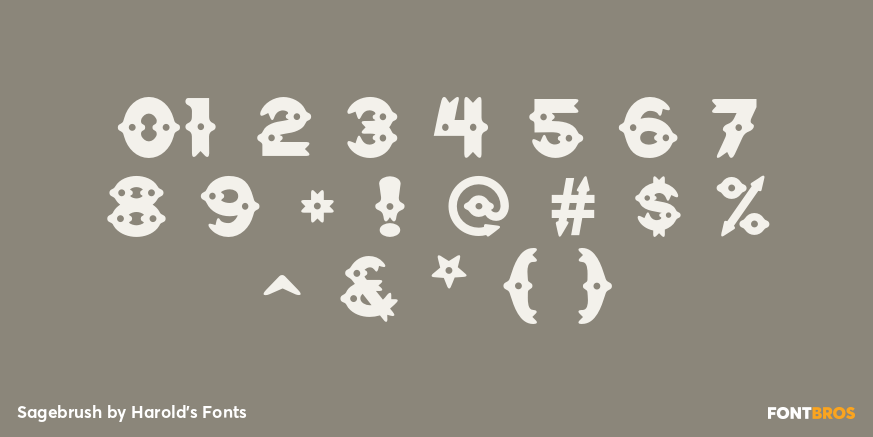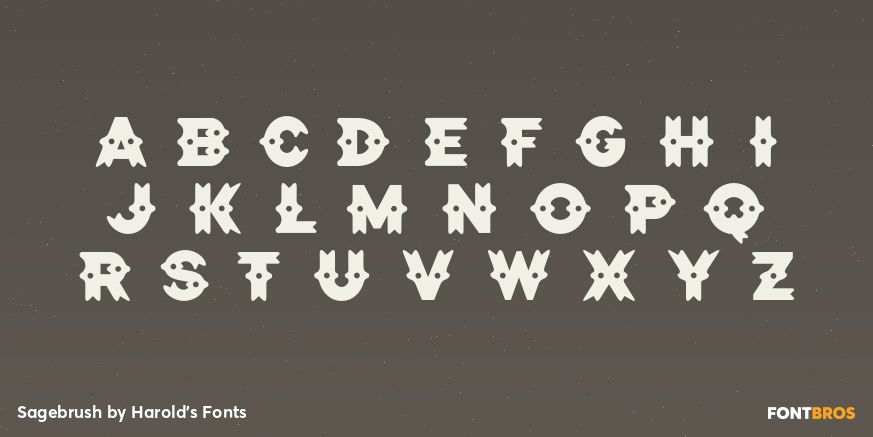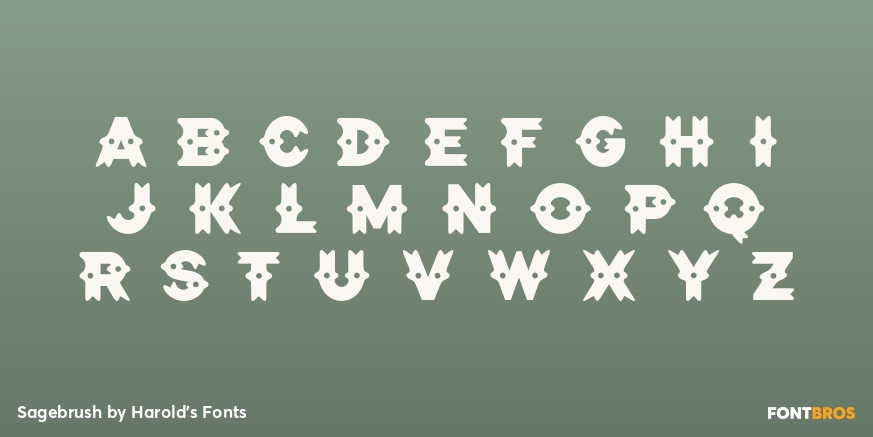
Sagebrush
Font Family by Harold's Fonts
SAGEBRUSH is a decorative font with a Western flavor, its distinctive dots and curves and suggesting silver conchos, sheriffs' badges, cowhides and spurs. In reality, it was inspired by the logo of the legendary NYC punk club CBGB OMFUG. When you learn that CBGB stood for "country, bluegrass, blues," it's easier to see what they were going for with this design, so far from punk typography.